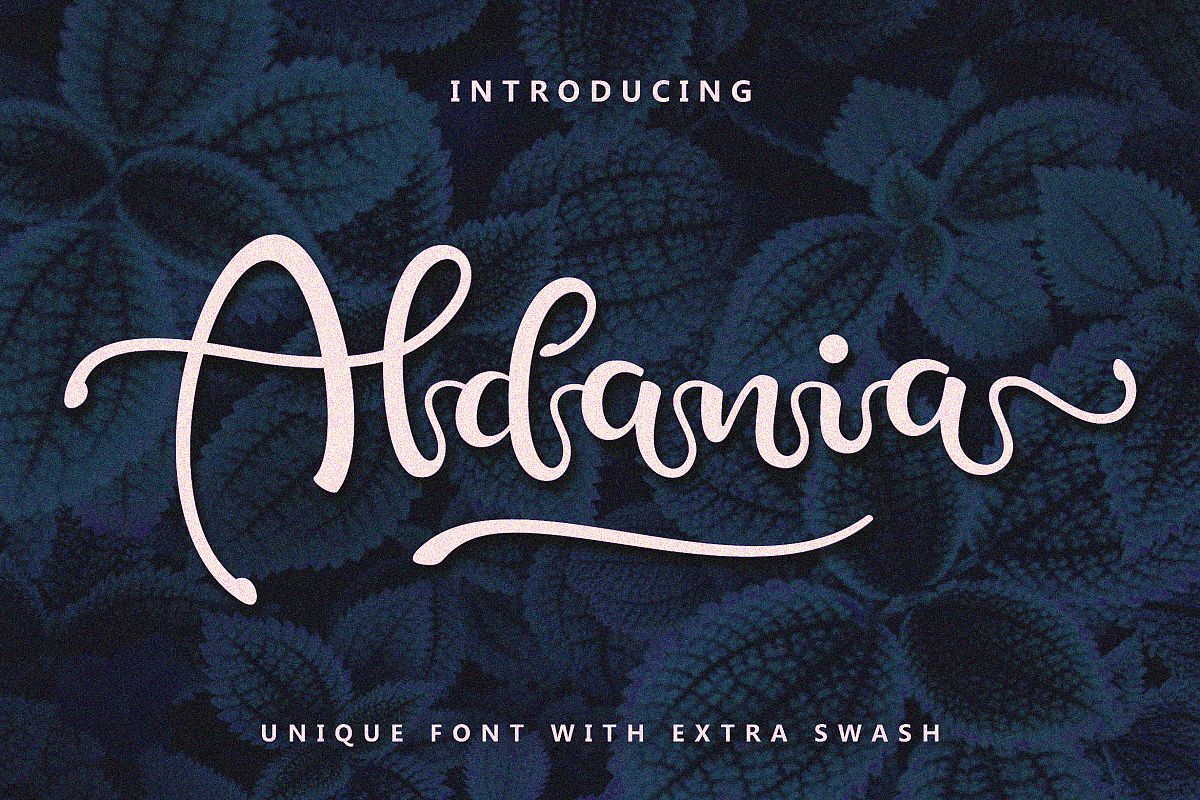
Aldania
Aldania Swash
Aldania
The Aldania is a beautiful and cute font with an unique feel and amazing swash. Fall in love with its adorable charm and use it for any creative project that needs a lovely feel.
-  Aldania Swash